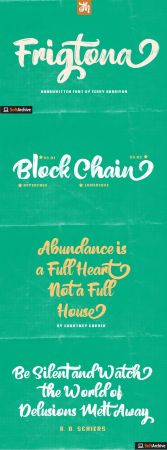
Frigtona is script font with handlettering brush style, with opentype feature include of the font. Suitable for design, element design, wedding, event, t-shirt, logo, badges, sticker, and awesome work, etc...